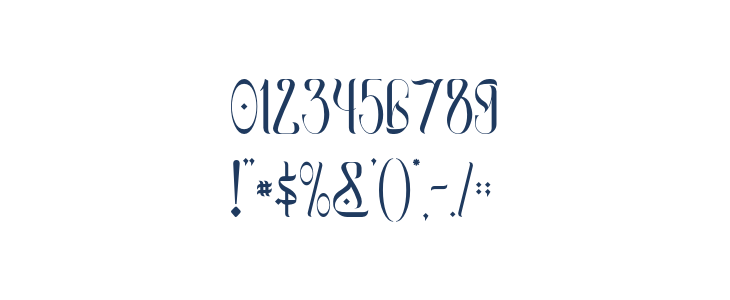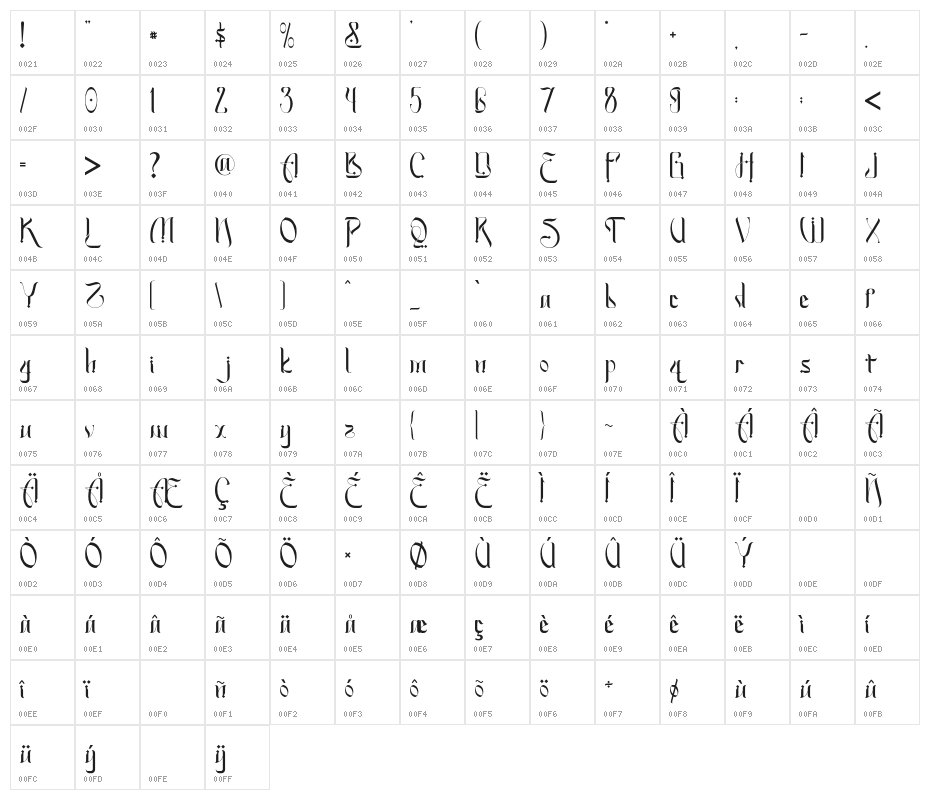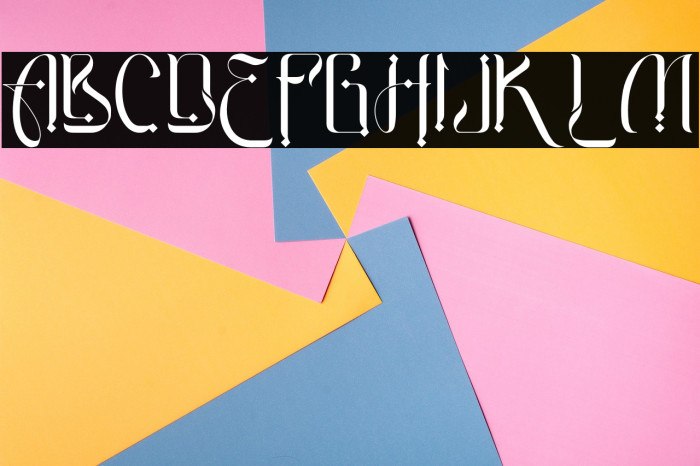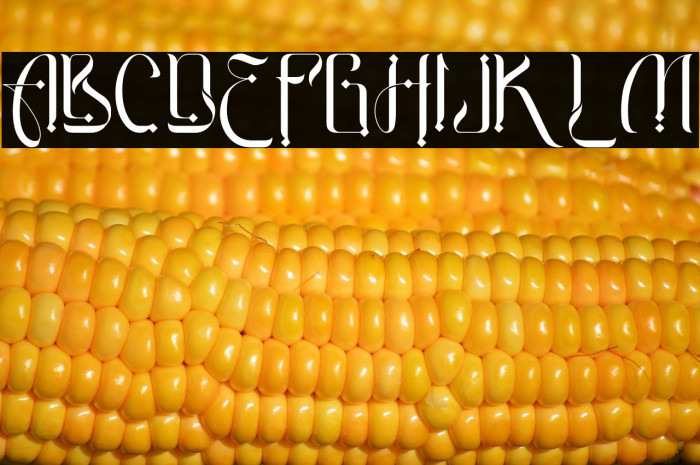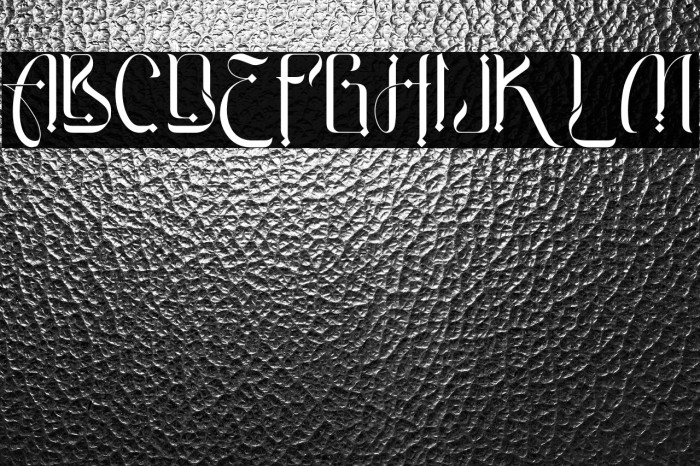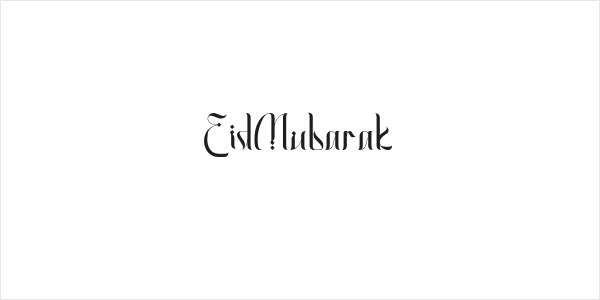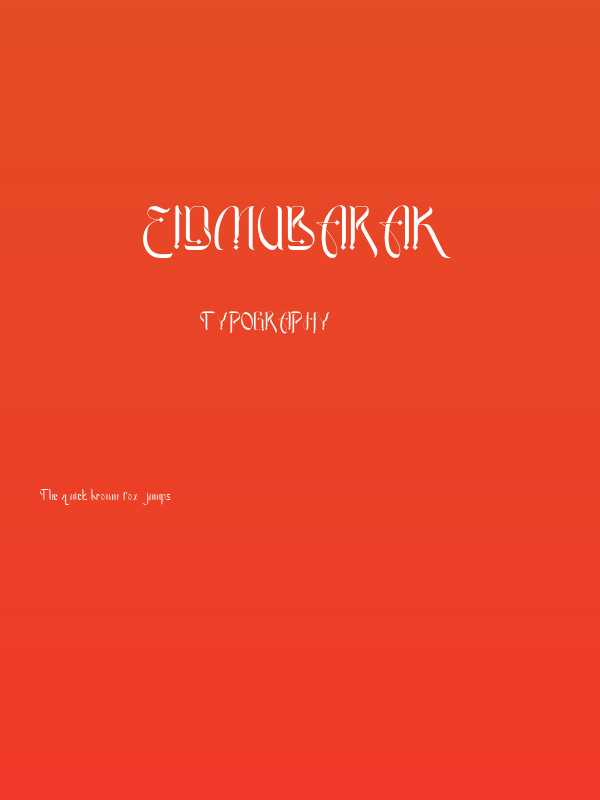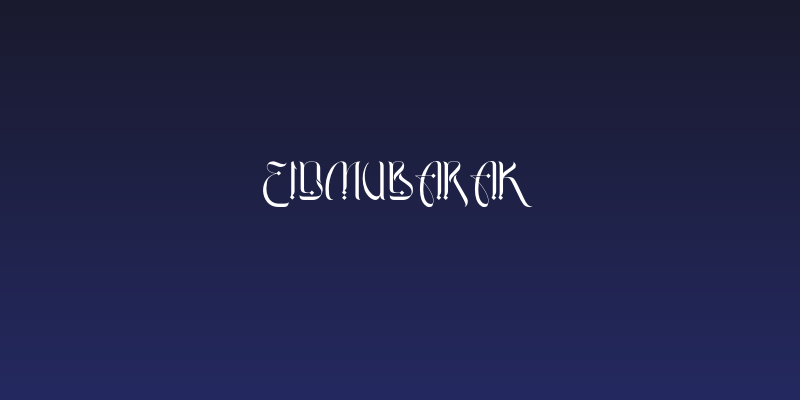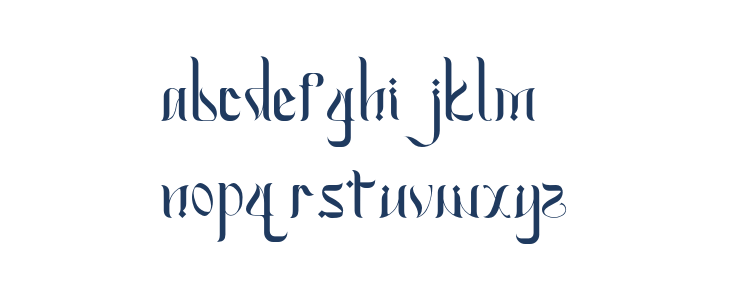
EidMubarak Font
EidMubarak Description
This font features a unique and artistic design with a blend of calligraphic and modern elements. The uppercase letters exhibit a bold and decorative style, with intricate curves and sharp edges that give it a distinctive look. The lowercase letters maintain a similar aesthetic, with a slightly more fluid and connected appearance. The numerals are consistent with the overall style, featuring elegant curves and a balanced structure. Special characters are creatively designed, adding to the font's decorative appeal. This font's intricate details and artistic flair make it suitable for projects that require a touch of elegance and creativity.
| Proposed Projects | Ideal for wedding invitations, greeting cards, branding, and artistic posters. |